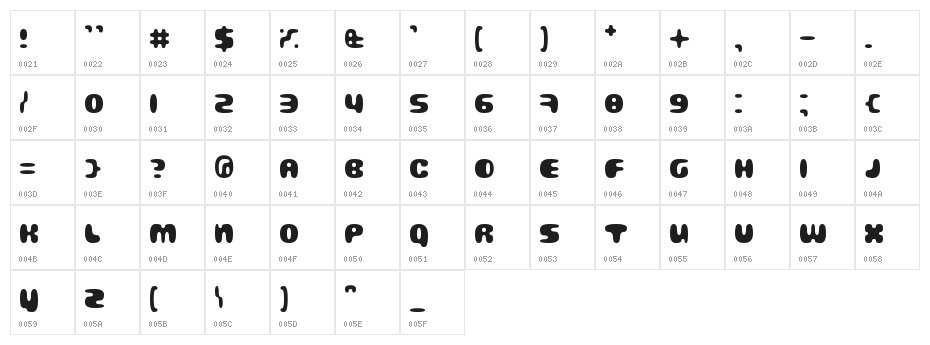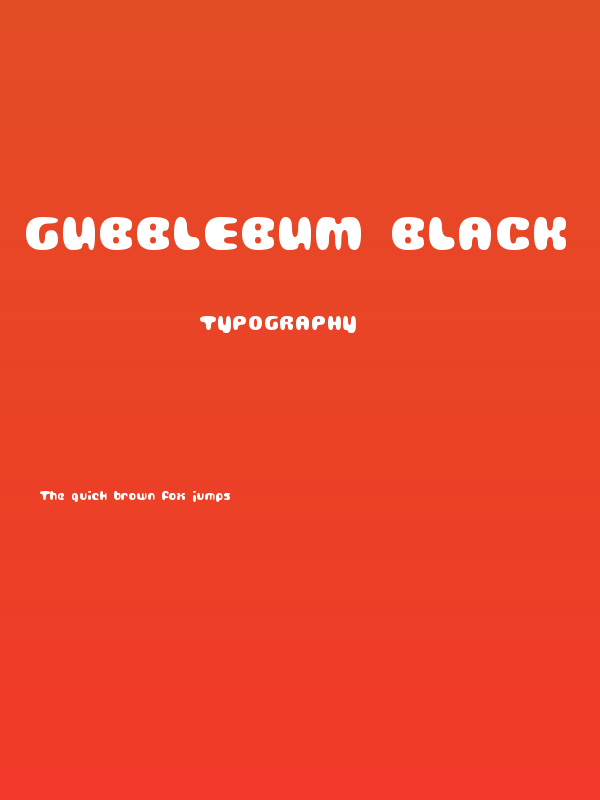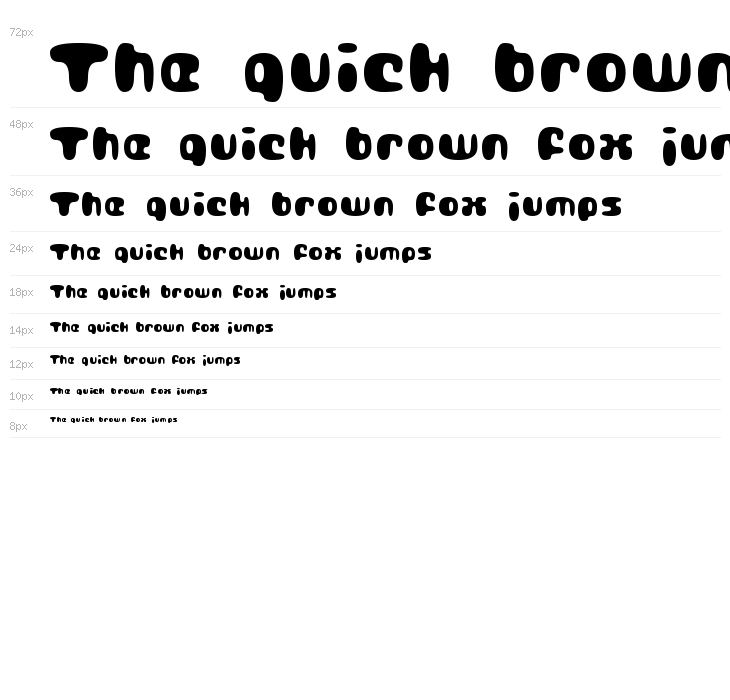
Gubblebum Black Font
Gubblebum Black Description
This playful and bold typeface features rounded, bubbly characters that exude a sense of fun and whimsy. The letters are thick and substantial, with a consistent stroke width that gives them a solid, impactful presence. The rounded edges and smooth curves create a friendly and approachable aesthetic, making it ideal for projects that aim to convey a sense of joy and creativity. The font includes a full set of uppercase and lowercase letters, numbers, and a variety of special characters, ensuring versatility in design applications.